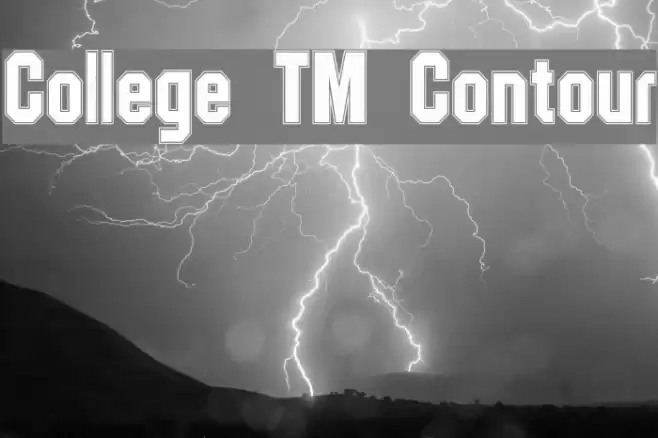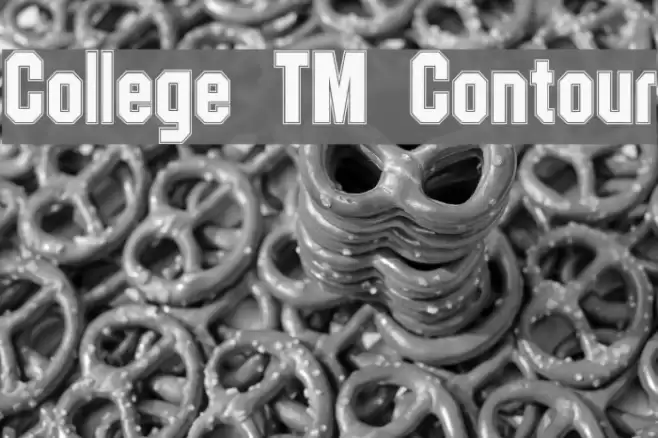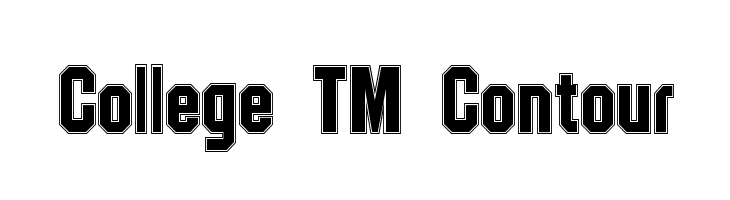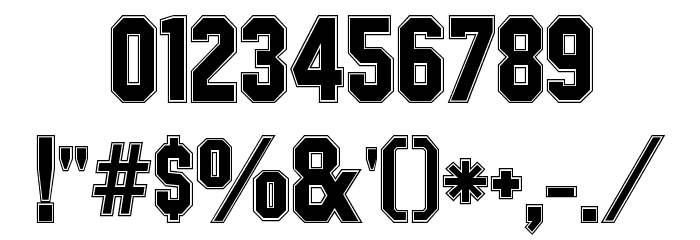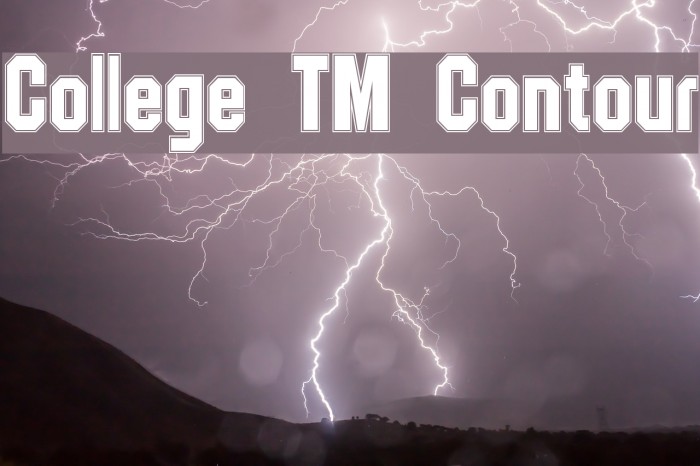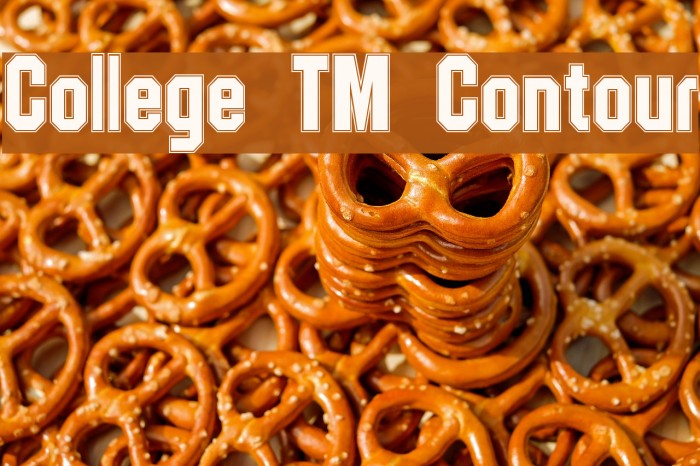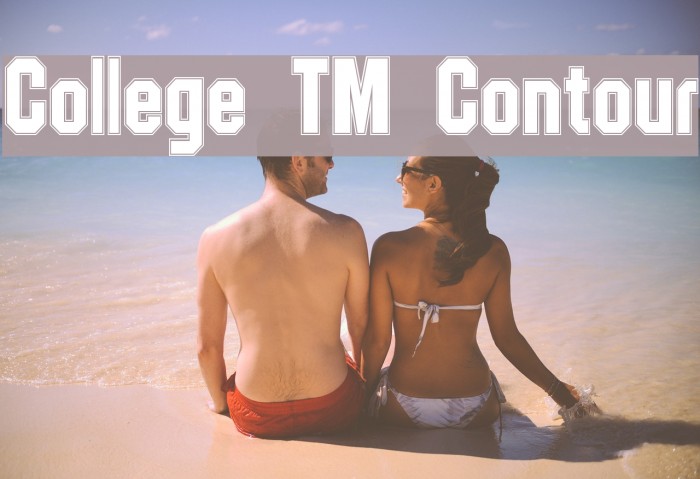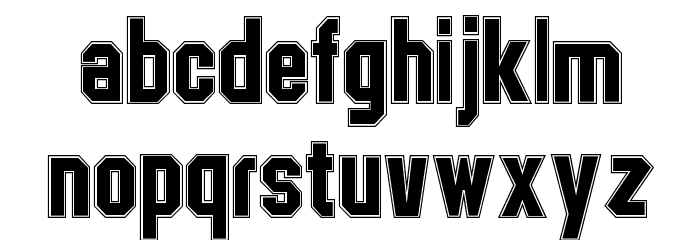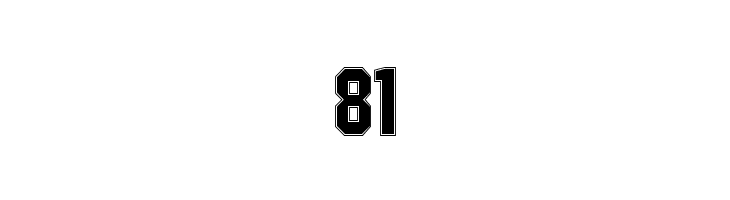
College TM Contour Font
College TM Contour Description
This font features a bold, impactful design with a strong presence, characterized by its thick, blocky letters and a distinctive contour outline. The uppercase and lowercase letters maintain a consistent geometric structure, offering a sense of uniformity and balance. The numerals and special characters follow the same bold style, ensuring cohesiveness across all text elements. Its design is reminiscent of collegiate or varsity aesthetics, making it ideal for projects that require a strong, authoritative look. The font's high contrast between the thick strokes and the inner spaces enhances readability and visual appeal.
A bold, contour-outlined font with a collegiate, varsity style from Uncategorized fonts.
- Proposed Projects: Ideal for sports team branding, school event posters, merchandise, and any project needing a bold, collegiate feel.
- Overall Style: Classic, Decorative